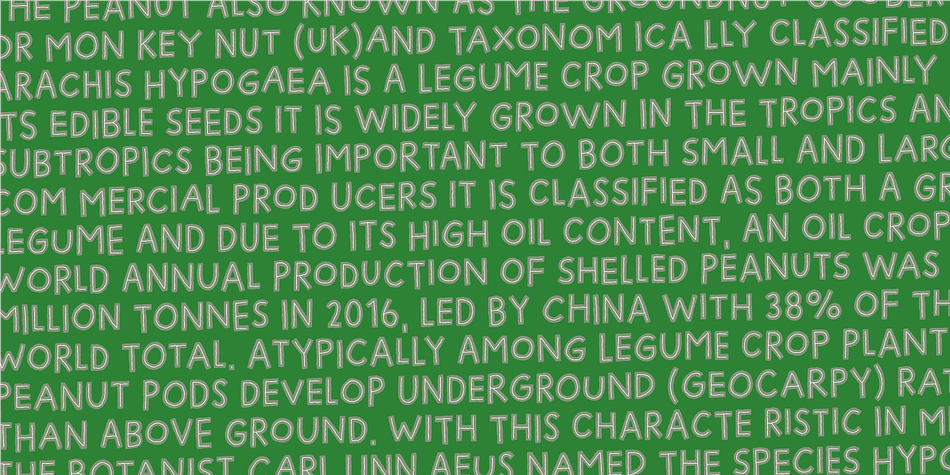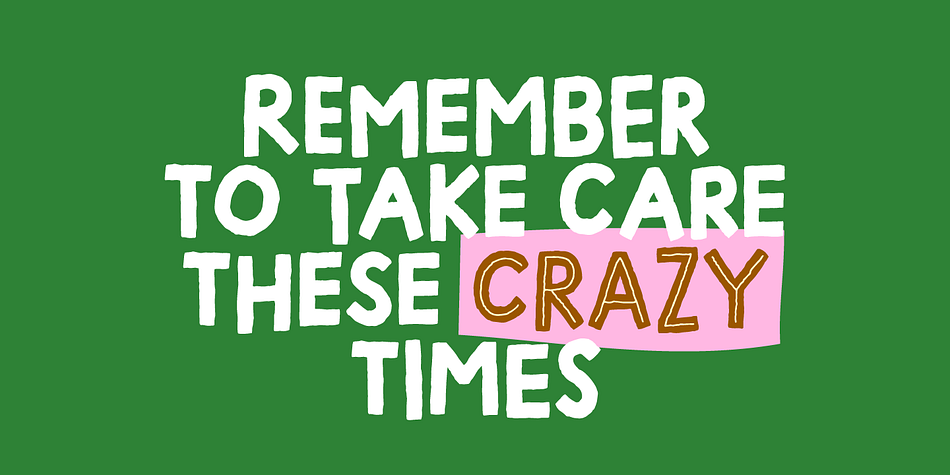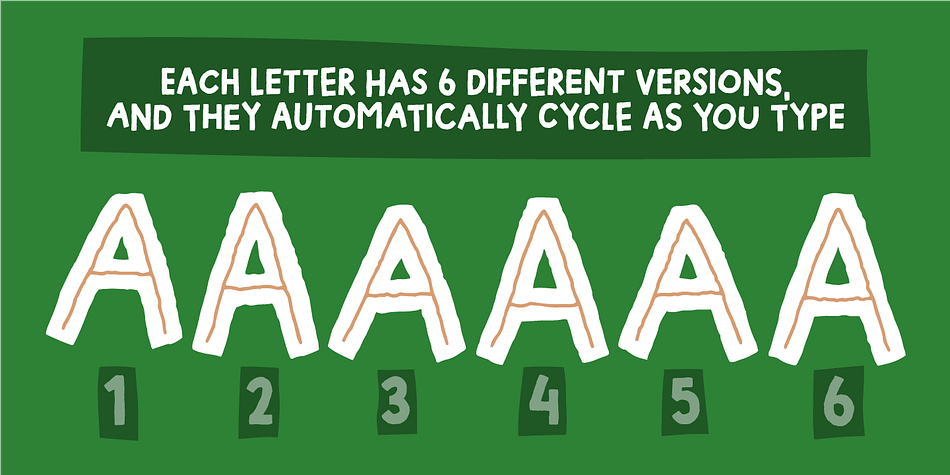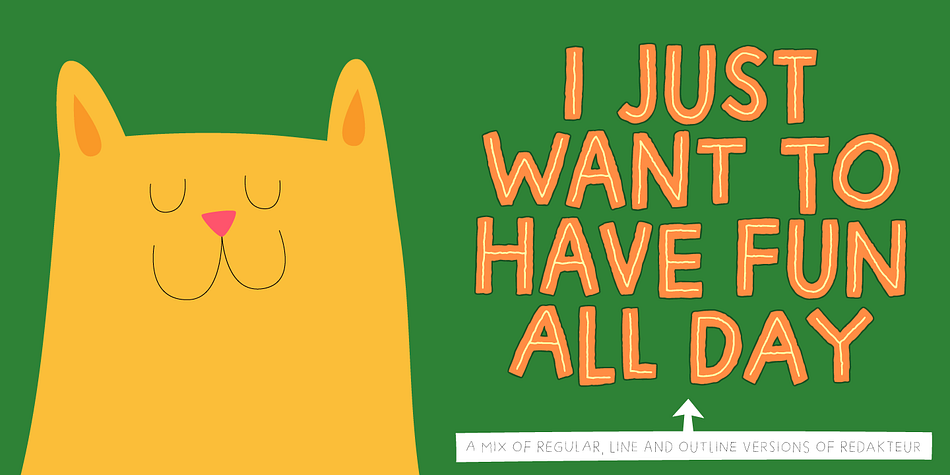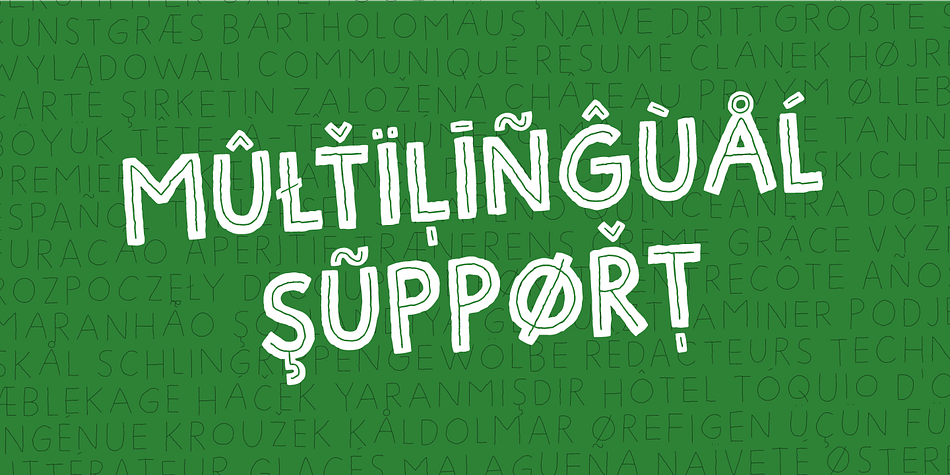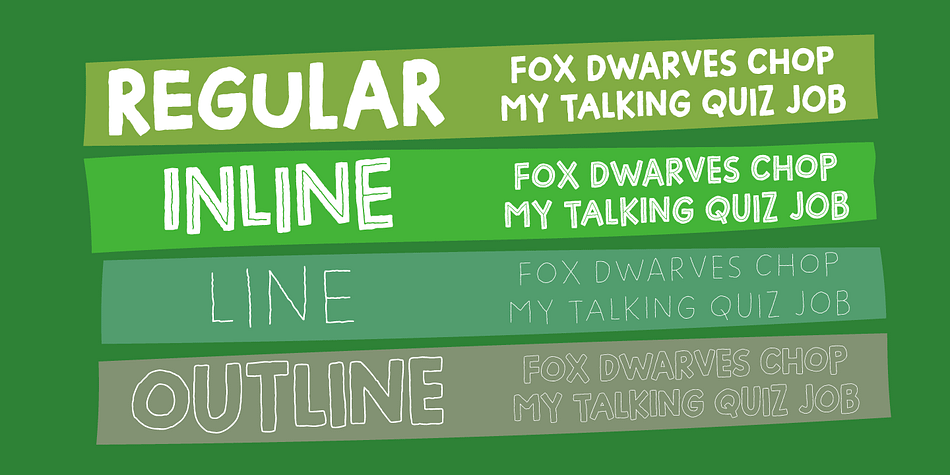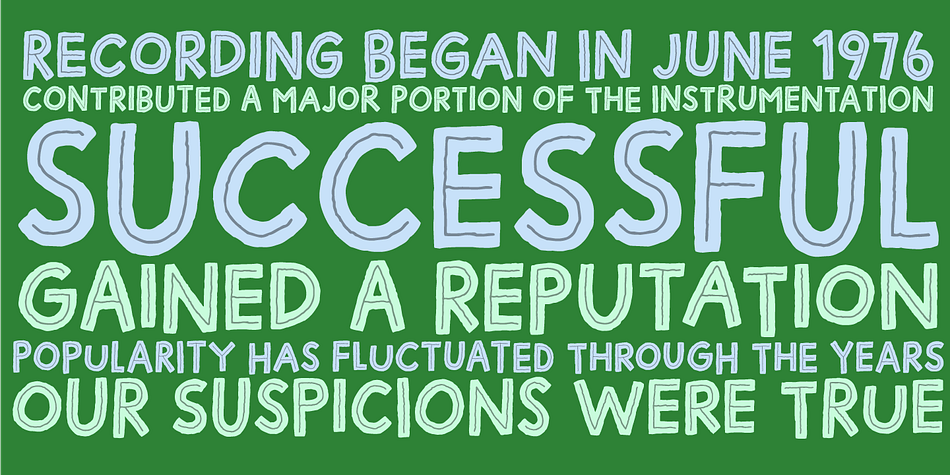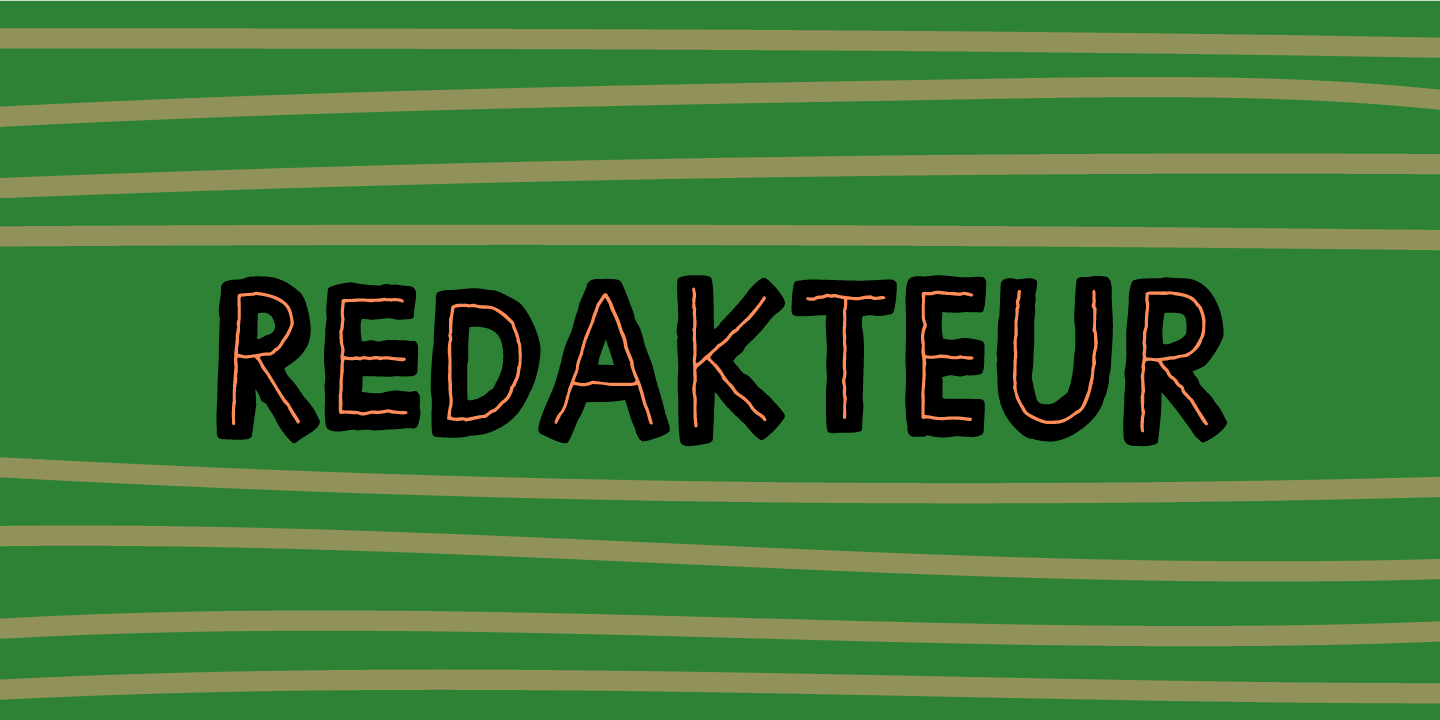
Redakteur
Designed by Jakob Fischer, Redakteur is a hand display font family. This typeface has four styles and was published by Bogstav.
Redakteur is my all-caps crunchy headline font…well not just suitable for headlines, but anything that needs a handcrafted legible and super organic looking… comes in 4 different versions, and they all use the contextual alternates, which in this case means 6 different versions of each letter!